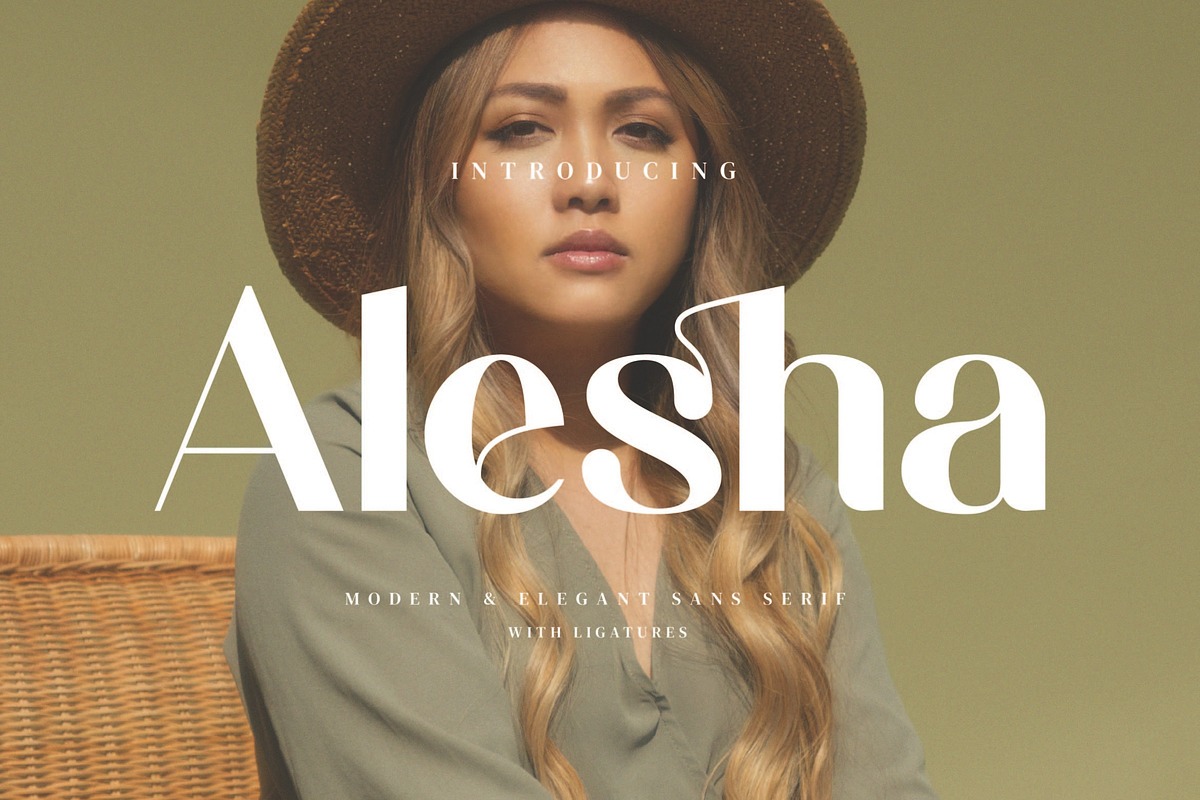
Alesha Font
Alesha Font is a clean and thoughtfully built typeface that works seamlessly for both professional branding and everyday creative uses. Alesha Sans Font Typeface inspired by the famous minimalist logo perfect for the purposes of designing templates, brochures, videos, advertising branding, logos, invitation, layout design, elegant crafting, beauty design and other.